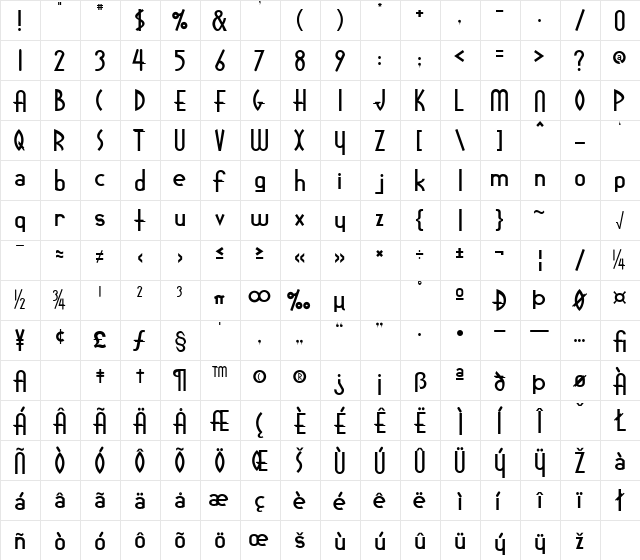
LauraMcCrary Normal
Design Context for LauraMcCrary
LauraMcCrary is a composed and adaptable typeface that performs quietly and consistently across a wide range of design contexts.
Pro Tip: Use LauraMcCrary in both headline and body roles to test its range before committing to a single application.